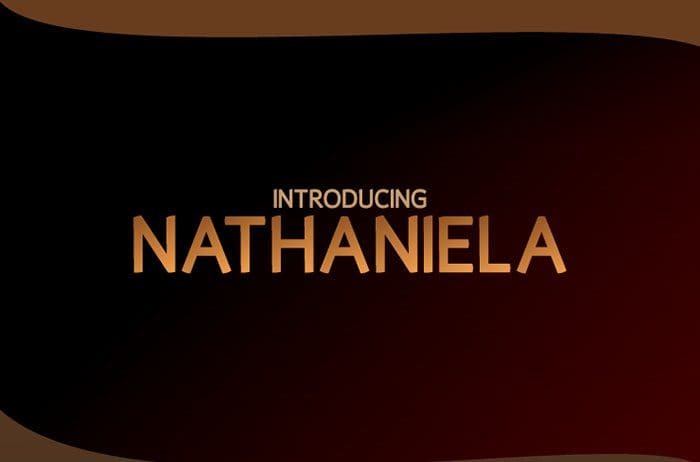
Nathaniela Sans Serif Font
Nathaniela is a distinct, elegant sans serif font that blends traditional influences into a contemporary aesthetic. Use this gorgeous and unique font to bring any DIY project to life! Thanks to Mas Anis for sharing this font! Take a look at this portfolio for more of his stunning fonts.